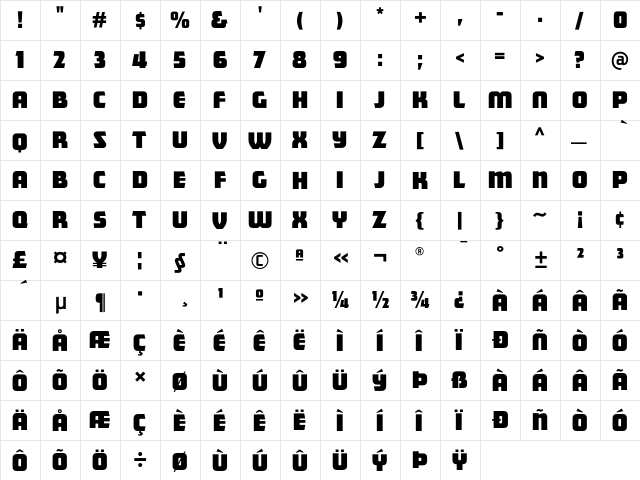
Matinee Gothic
| Style | Gothic |
Design Context for Matinee Typeface
Matinee takes a clean, functional approach — its unadorned letterforms prioritise legibility and work reliably across screen and print environments.
Font Pairing: Works well alongside a characterful serif or display font that can carry the expressive load while Matinee handles the functional copy.
Pro Tip: Pair Matinee with a display or serif font for headlines — its neutral character makes it an excellent supporting player in complex typographic systems.